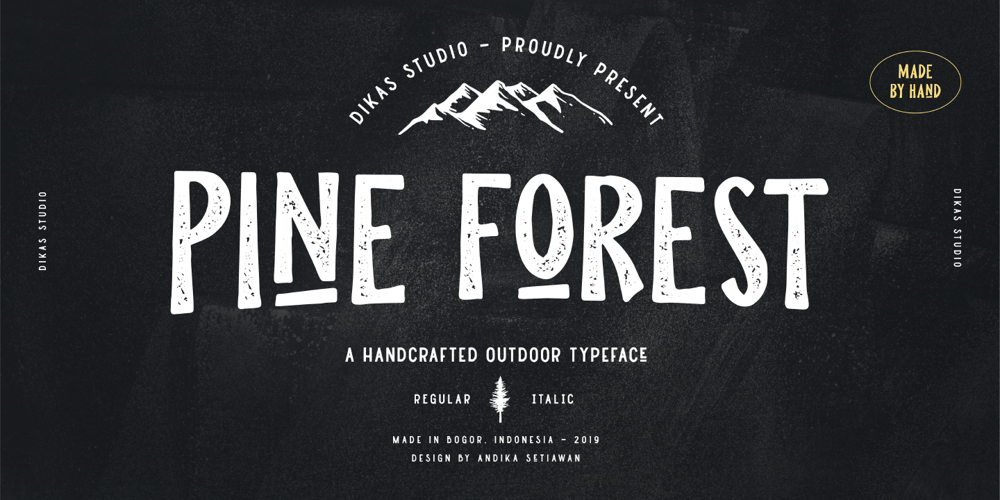
Pine Forest
Pine Forest font
Pine Forest Font Family was designed by Andika Setiawan and published by Dikas Studio. Pine Forest contains 2 styles and family package options. Pine Forest is a display sans serif typeface inspired from outdoor activity, they have a verry handrawn and playfull character. Pine Forest come with two fonts styles press and press italichand. Suitable and applicable to create typography design, branding, logos, product packaging, invitation, qoutes, t-shirt, label badge poster etc.Caps Only Fonts